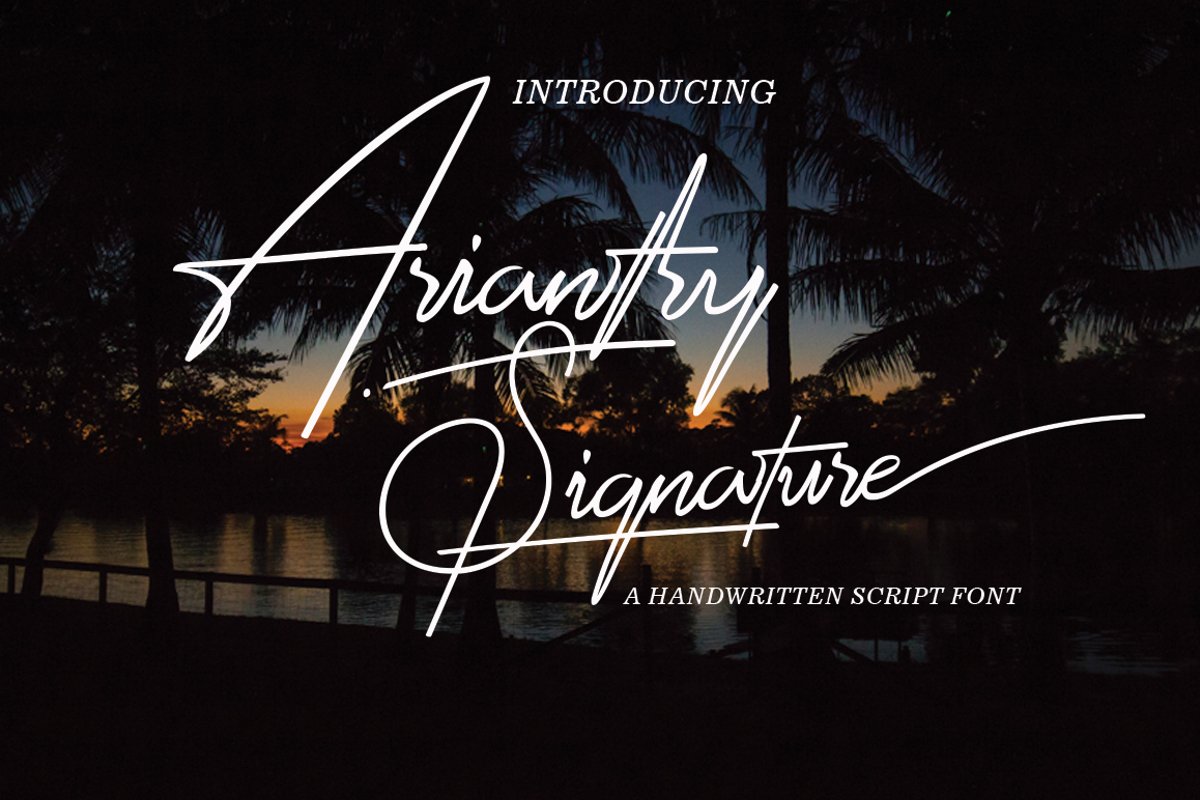
Arianthy
Arianthy - a new fresh handwritten calligraphy font. Very suitable for greeting cards, branding materials, business cards, quotes, posters, and more!
The Features of this fonts is:
• Standart ligatures
• PUA Unicode (Private Use Areas)